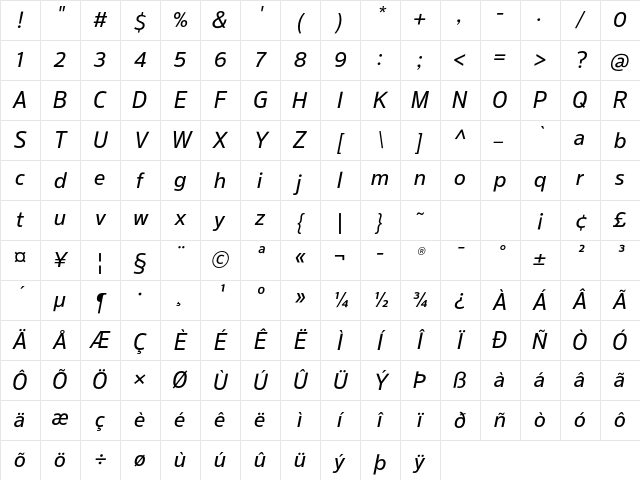
MP CDPracharath Medium It
Style: Medium It
Foundry: Cadson Demak Team at Cadson Demak Co., Ltd.
Designer: Cadson Demak
Design Context for MP CDPracharath
MP CDPracharath is a composed and adaptable typeface that performs quietly and consistently across a wide range of design contexts.
Who designed the MP CDPracharath Medium It font?